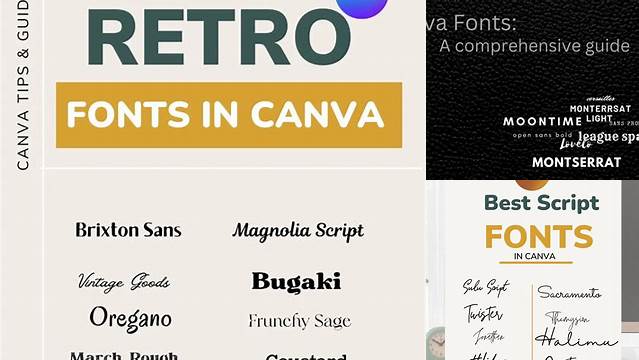
Cool & Free Canva Fonts: A Design Guide
Hey guys! Are you looking to spice up your designs with some cool fonts on Canva, and the best part is, completely free? You've landed in the right place! In this guide, we'll dive deep into the world of Canva fonts, exploring a variety of options that will make your projects stand out. We'll cover everything from understanding the basics of font pairing to discovering hidden gems within Canva's extensive library. So, buckle up and let’s transform your designs from drab to fab, all while keeping your budget intact.
Understanding the Basics of Canva Fonts
When it comes to cool fonts on Canva, it’s essential to first understand the basics. Canva offers a plethora of fonts, ranging from classic serifs to modern sans-serifs, playful scripts, and bold display fonts. Each font has its own personality and evokes different emotions, so choosing the right one is crucial for effective communication. For instance, a serif font like Times New Roman or Garamond might convey a sense of tradition and professionalism, making it suitable for formal documents or branding materials. On the other hand, a sans-serif font such as Helvetica or Arial tends to feel more contemporary and clean, ideal for websites, presentations, and marketing materials. Script fonts, with their cursive-like appearance, can add a touch of elegance and creativity, perfect for invitations, logos, and decorative elements. Display fonts, often characterized by their unique and attention-grabbing styles, are best used for headlines, posters, and anything that needs to make a statement. Understanding these basic categories is the first step in mastering font selection on Canva. Additionally, it’s important to consider the readability of your chosen font. While a font might look visually appealing, it won’t be effective if your audience struggles to read it. Opt for fonts that are clear and legible, especially for body text. You should also think about the overall tone and message of your design. The font should complement your content, not clash with it. A playful, cartoonish font might not be the best choice for a serious business presentation, just as a formal, traditional font might not suit a fun, lighthearted social media post. Canva’s intuitive interface makes it easy to browse and preview different fonts, allowing you to experiment and find the perfect fit for your project. Remember, the right font can elevate your design and help you connect with your audience on a deeper level.
Top Free Cool Fonts on Canva
Canva's treasure trove of cool fonts is something you guys seriously need to explore! The platform offers a wide array of options that won't cost you a dime. Let's highlight some of the absolute best free fonts that can add a unique touch to your designs. First up, we have Oswald, a classic sans-serif font that's incredibly versatile. Its clean lines and modern aesthetic make it perfect for headlines, body text, and everything in between. Oswald's readability and professional look make it a go-to choice for many designers. Next, there's Raleway, another fantastic sans-serif font that exudes elegance and sophistication. With its slightly condensed letterforms and a variety of weights, Raleway is ideal for both headings and body text, giving your designs a polished, high-end feel. If you're looking for something with a bit more personality, Playfair Display is an excellent option. This serif font is known for its graceful curves and timeless appeal, making it perfect for titles, logos, and any design that needs a touch of class. For a more contemporary vibe, check out Montserrat. This geometric sans-serif font is clean, modern, and highly legible, making it a great choice for websites, presentations, and marketing materials. Its versatility allows it to work well in a variety of contexts. If you're aiming for a handwritten or script-like look, Pacifico is a fun and friendly option. This cursive font adds a personal touch to your designs, making it ideal for invitations, social media graphics, and branding materials. For a bold and impactful statement, consider Bebas Neue. This sans-serif font is tall, condensed, and perfect for headlines and posters. Its strong presence ensures your message will be noticed. Another gem is Lato, a sans-serif font that balances simplicity and elegance. Lato's clean lines and modern feel make it a versatile choice for various design projects. Lastly, Open Sans is a highly readable and neutral sans-serif font that works well in a multitude of applications. Its versatility and clarity make it a staple in the design world. These free fonts on Canva are just the tip of the iceberg, guys! Experiment with them, mix and match, and discover your personal favorites.
Font Pairing: How to Mix and Match Like a Pro
Mastering the art of font pairing is essential for creating visually appealing and cohesive designs, and it’s a crucial aspect of working with cool fonts. Pairing fonts effectively can elevate your design from amateur to professional, ensuring that your message is conveyed clearly and stylishly. The fundamental principle of font pairing is to create contrast while maintaining harmony. This means selecting fonts that complement each other without competing for attention. One common approach is to pair a serif font with a sans-serif font. For example, you might use Playfair Display for your headings and Open Sans for your body text. The contrast between the elegant serifs of Playfair Display and the clean lines of Open Sans creates a balanced and visually pleasing effect. Another effective strategy is to use different weights of the same font family. If you're using Montserrat, for instance, you might opt for Montserrat Bold for headings and Montserrat Regular for body text. This approach ensures consistency while providing enough visual distinction to guide the reader. When choosing fonts, consider the overall tone and message of your design. A formal design might benefit from a classic serif font paired with a clean sans-serif, while a more playful design might incorporate a script font with a bold sans-serif. It's also important to limit the number of fonts you use in a single design. Using too many fonts can make your design look cluttered and confusing. A general rule of thumb is to stick to two or three fonts at most. Another tip for successful font pairing is to pay attention to the x-height of your fonts. The x-height refers to the height of the lowercase letters in a font. Fonts with similar x-heights tend to pair well together. Additionally, consider the spacing and kerning of your fonts. Adjusting these settings can improve readability and visual appeal. Canva’s intuitive design interface makes it easy to experiment with different font pairings and see how they look together. Don't be afraid to try different combinations and see what works best for your project. Remember, practice makes perfect. The more you experiment with font pairing, the better you'll become at creating visually stunning designs.
Hidden Gems: Underrated Free Fonts on Canva
Beyond the popular choices, Canva hides some seriously underrated cool fonts that can add a unique flavor to your designs. These hidden gems are often overlooked but can be incredibly effective when used creatively. One such gem is Lora, a well-balanced serif font that exudes modernity and elegance. Its slightly brushed feel gives it a contemporary edge, making it perfect for blog headers, editorial designs, and branding materials. Lora's readability and versatility make it a standout choice for designers seeking something different from the usual serif options. Another fantastic but often overlooked font is Merriweather. This serif font is designed for on-screen reading, making it an excellent choice for websites, e-books, and digital publications. Merriweather's sturdy letterforms and subtle serifs provide a comfortable reading experience, and its various weights allow for flexible usage in different design contexts. For a touch of retro charm, Archivo Black is a bold and impactful sans-serif font that demands attention. Its condensed letterforms and heavy weight make it ideal for headlines, posters, and any design that needs a strong visual presence. Archivo Black's unique style can add a vintage feel to your projects while maintaining a modern aesthetic. If you're looking for a clean and minimalist sans-serif font, Nunito is a fantastic option. This well-rounded font is highly legible and versatile, making it suitable for a wide range of design applications. Nunito's friendly and approachable character makes it a great choice for websites, apps, and user interfaces. For a touch of whimsy and playfulness, Cabin is a geometric sans-serif font that combines modernity with a hint of personality. Its slightly rounded letterforms and balanced proportions make it a versatile choice for both headlines and body text. Cabin's friendly and inviting character can add a lighthearted touch to your designs. Another hidden gem is Bitter, a slab-serif font designed for readability on screens. Its robust letterforms and clear design make it an excellent choice for long-form content and digital publications. Bitter's unique style combines traditional and modern elements, making it a versatile option for various design projects. Exploring these underrated fonts on Canva can help you discover unique styles that set your designs apart. Don't be afraid to experiment with these hidden gems and incorporate them into your projects to add a distinctive touch.
Tips and Tricks for Using Fonts Effectively on Canva
To truly master the use of cool fonts on Canva, it's essential to go beyond just selecting the right font and understand how to use them effectively. Here are some tips and tricks that can help you elevate your designs and make the most of Canva's font library. First and foremost, consider the context of your design. The font you choose should align with the purpose and audience of your project. For example, a formal business presentation would require a different font selection than a fun social media graphic. Think about the message you want to convey and choose fonts that support that message. Readability is paramount, especially for body text. While fancy fonts might look appealing, they're not effective if your audience struggles to read them. Opt for fonts that are clear and legible, even at smaller sizes. Use decorative or display fonts sparingly, primarily for headlines and titles, to avoid overwhelming the viewer. Whitespace, or negative space, is your friend. Don't overcrowd your design with text. Give your fonts room to breathe by leaving ample space around them. This improves readability and makes your design look more polished. Font size plays a crucial role in the overall visual hierarchy of your design. Use larger font sizes for headlines and titles to draw attention, and smaller font sizes for body text and supporting information. Consistency is key in any design project. Stick to a limited number of fonts (ideally two or three) and use them consistently throughout your design. This creates a cohesive and professional look. Pay attention to the letter spacing and line height of your text. Adjusting these settings can significantly impact readability. Canva's formatting tools make it easy to customize these settings to your liking. Use font styles (bold, italic, underline) sparingly and intentionally. Overusing these styles can make your text look cluttered and distracting. Use them to emphasize key words or phrases, but avoid using them excessively. Colors can also impact the effectiveness of your fonts. Choose font colors that contrast well with your background to ensure readability. Light text on a dark background or dark text on a light background generally works best. Finally, don't be afraid to experiment with different font combinations and styles. Canva's intuitive interface makes it easy to try out different options and see what works best for your project. The more you practice, the better you'll become at using fonts effectively in your designs.
So, there you have it, guys! A comprehensive guide to finding and using cool fonts on Canva for free. From understanding the basics of font pairing to discovering hidden gems and mastering effective usage tips, you're now equipped to create stunning designs that stand out. Remember, the right font can make all the difference in conveying your message and connecting with your audience. Canva's extensive library of free fonts offers endless possibilities for creativity, so don't hesitate to explore and experiment. Whether you're designing a professional presentation, a captivating social media post, or a personal invitation, the perfect font is just a few clicks away. Embrace the power of typography and let your designs speak volumes. Happy designing!